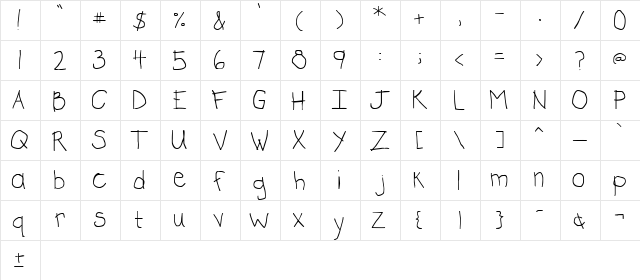
2Peas Kindergarten Regular Font Preview
2Peas Kindergarten Regular
2Peas Kindergarten Regular Font Details
Design Context for 2Peas Kindergarten Typeface
2Peas Kindergarten is a composed and adaptable typeface that performs quietly and consistently across a wide range of design contexts.